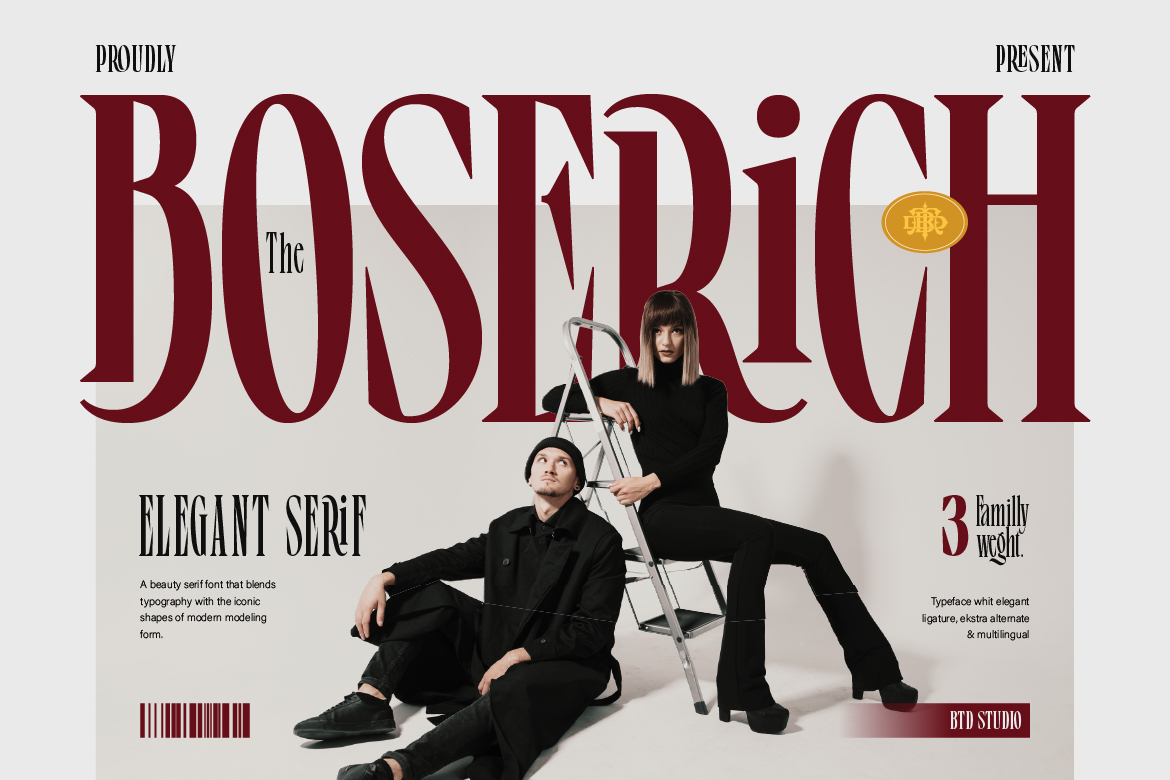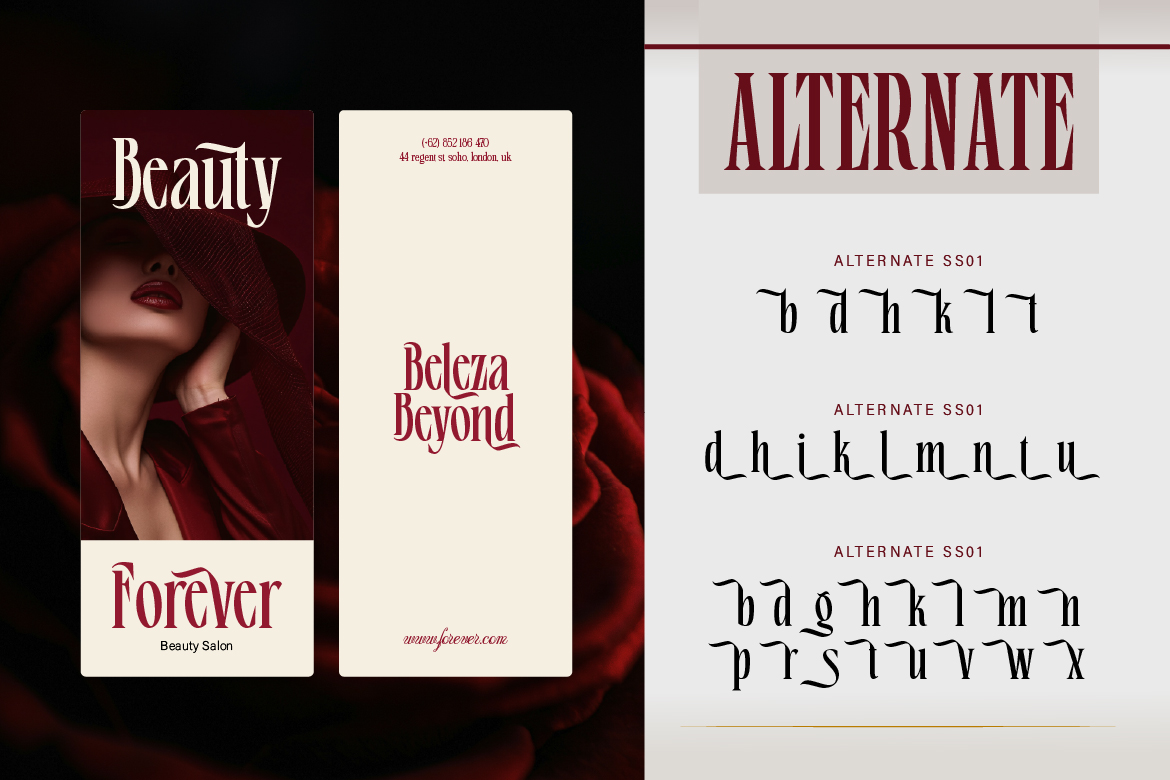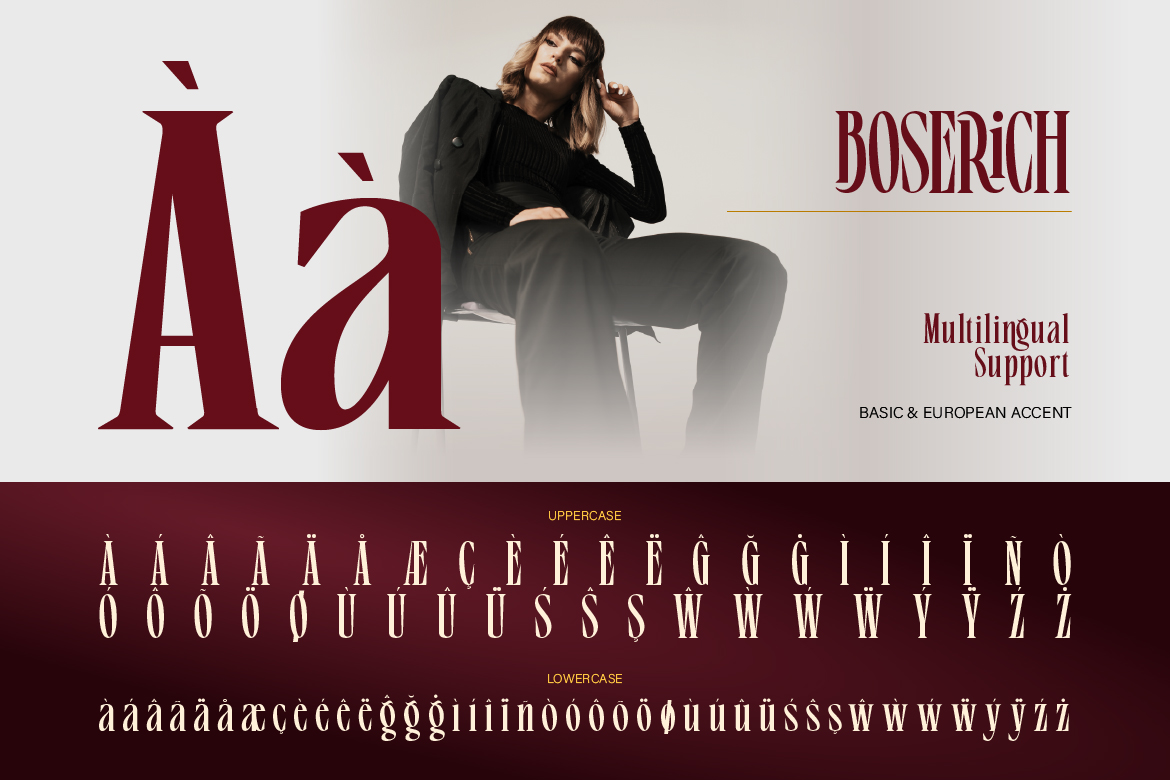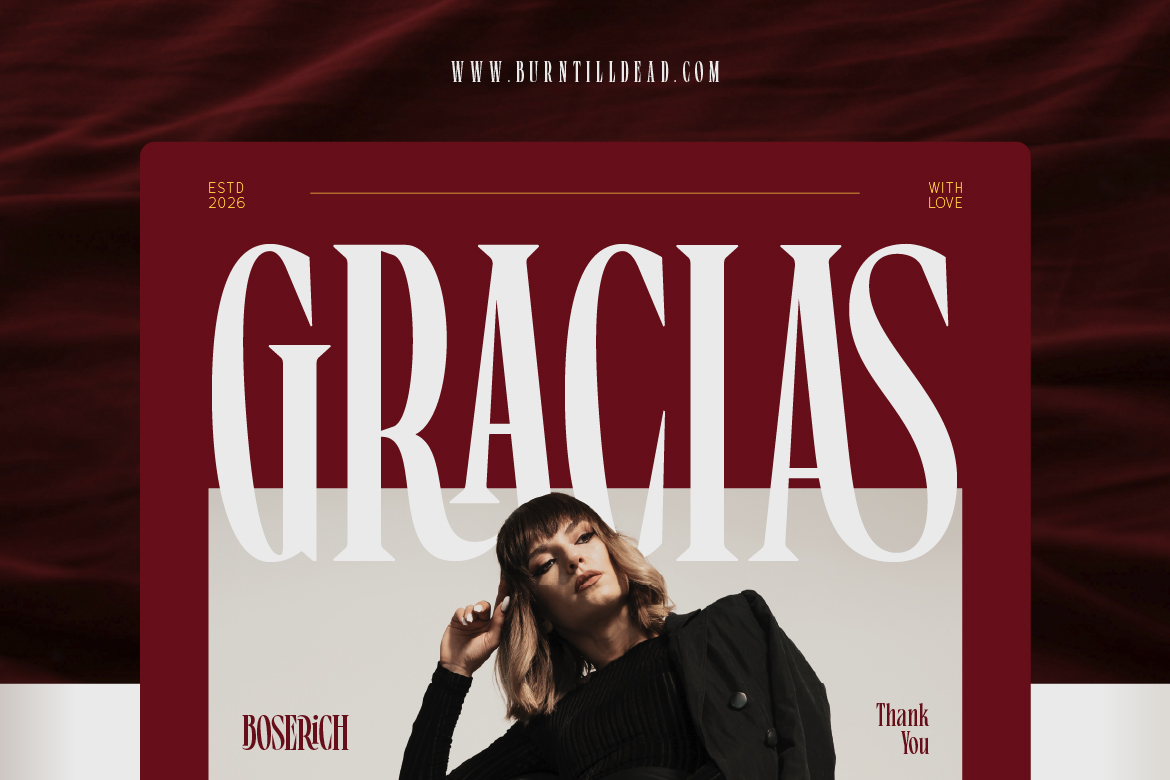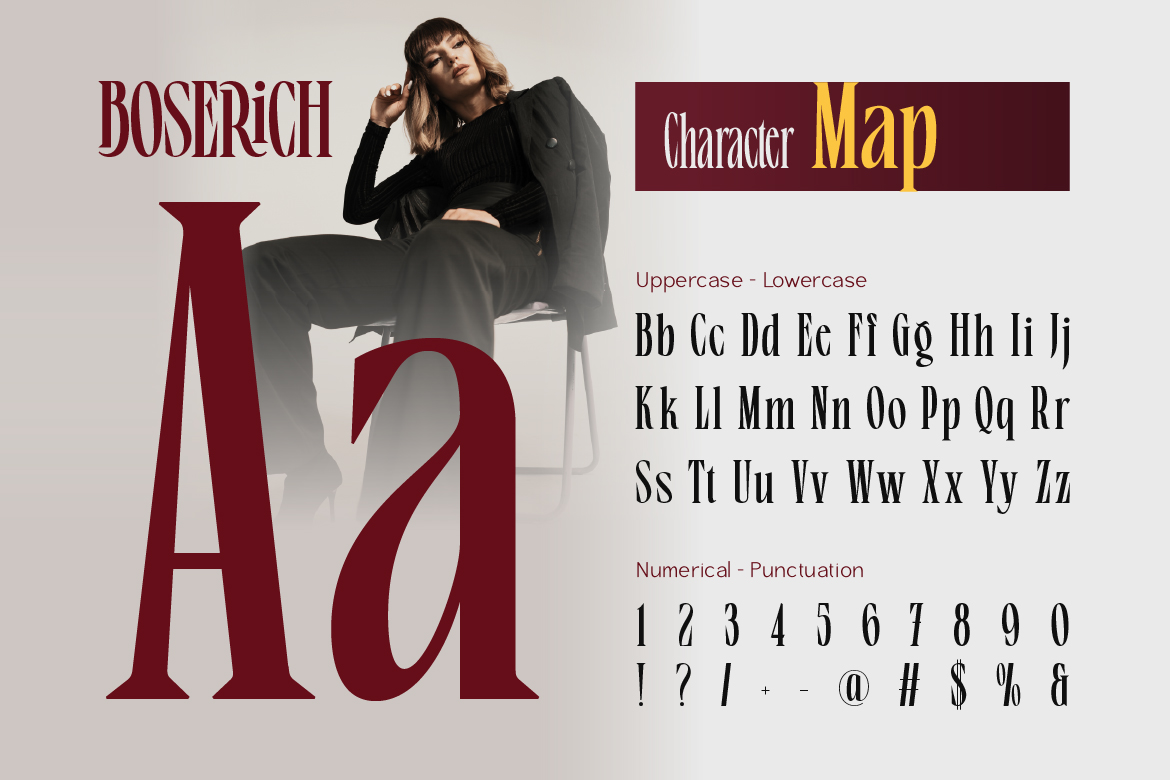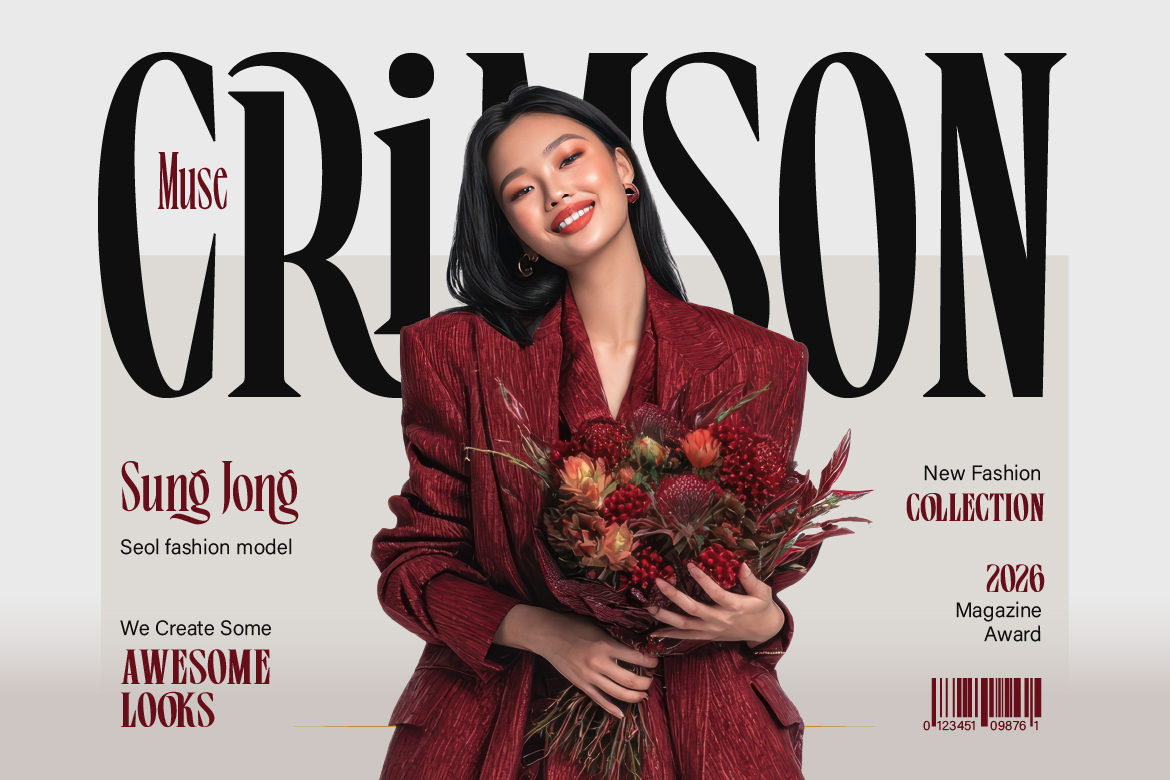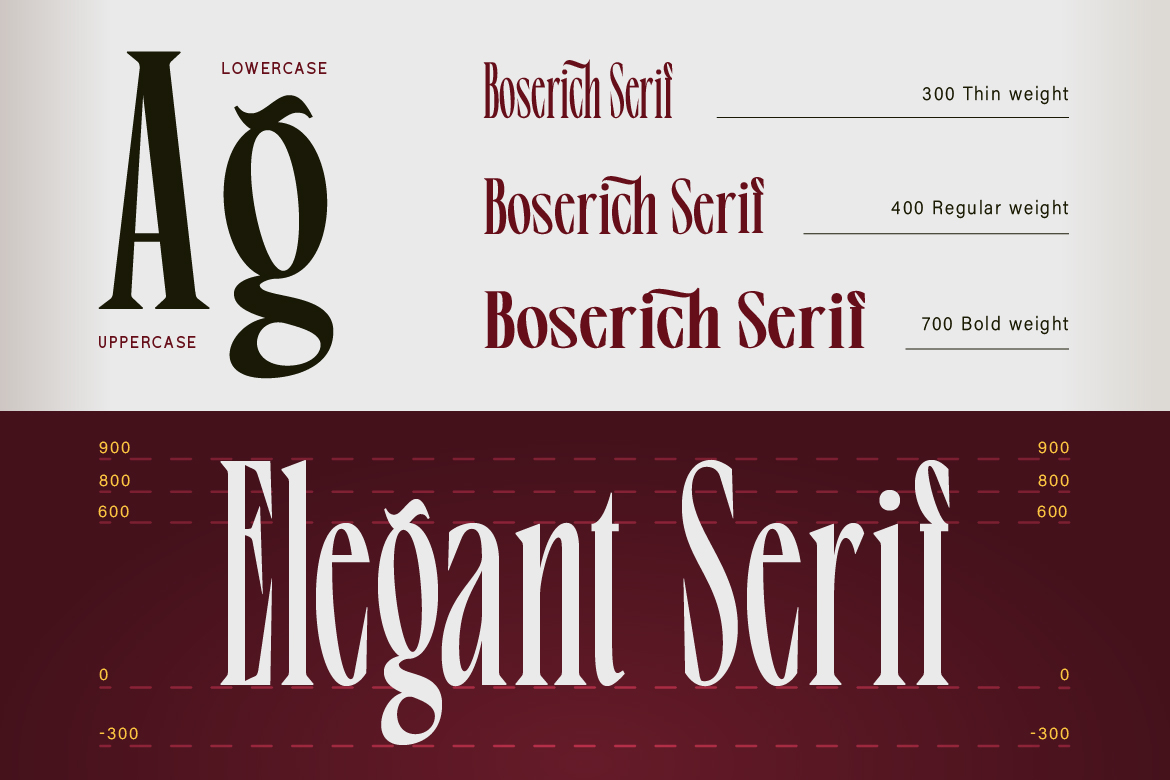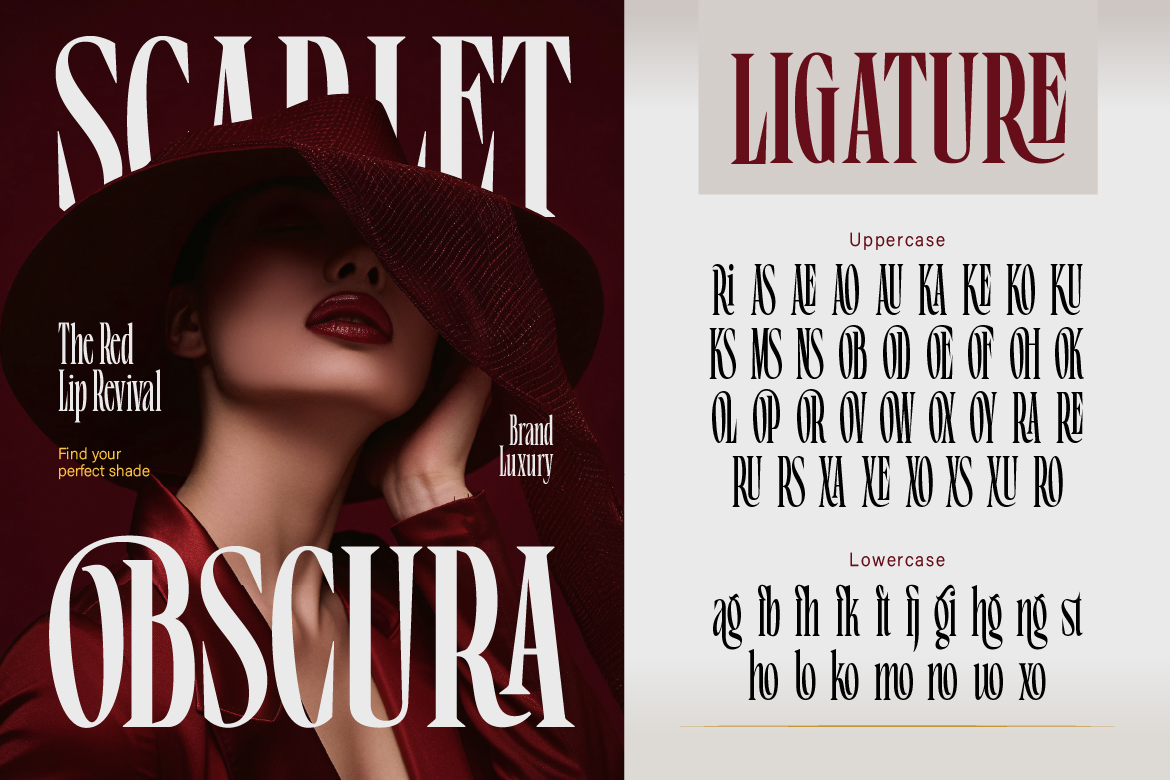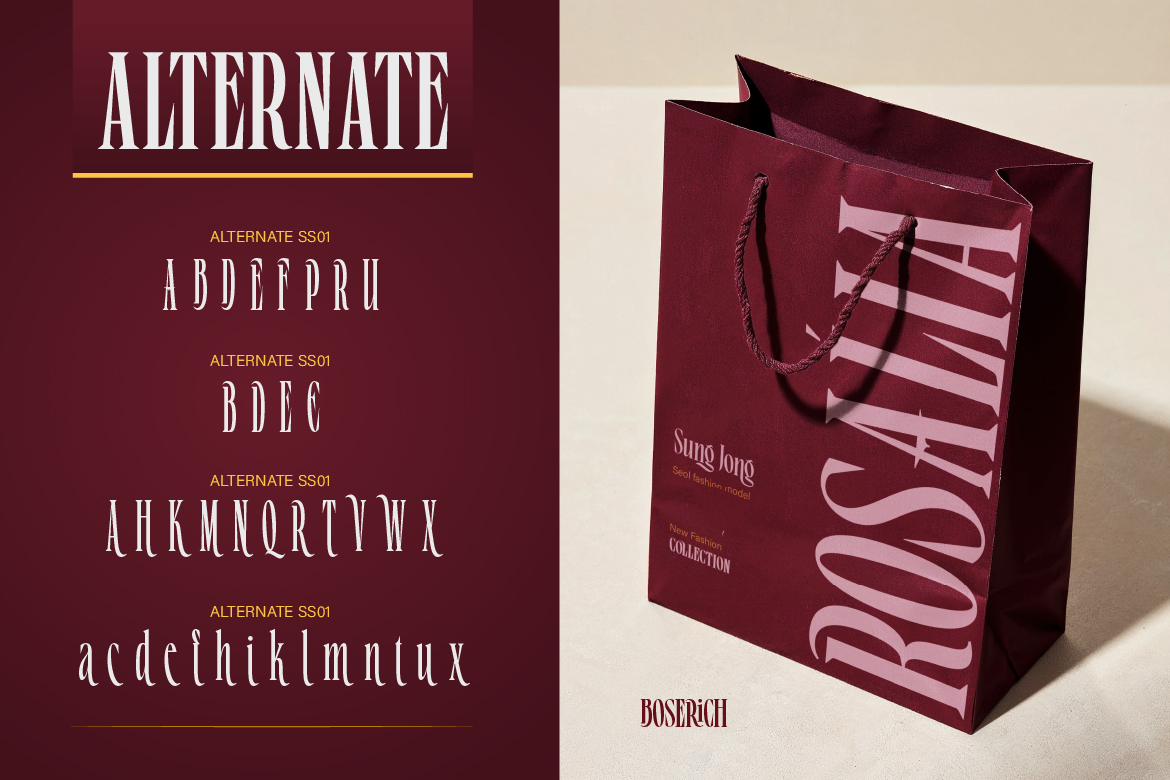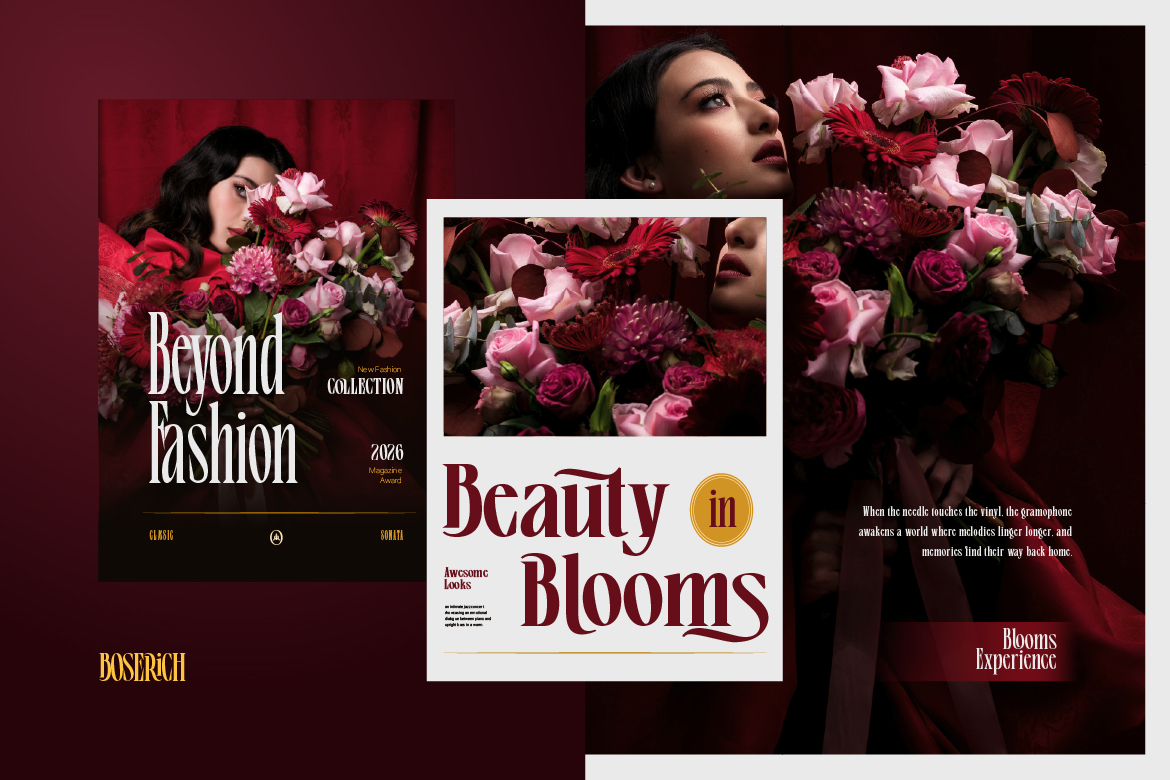
- Boserich
Boserich is a modern elegant serif typeface designed to bring a luxurious and high-fashion feel into your creative projects. Inspired by editorial magazines, luxury branding, and contemporary fashion aesthetics, this font blends classic serif structure with stylish modern details.
With its high contrast strokes, refined curves, and distinctive ligatures, Boserich creates a strong visual presence while still maintaining readability. The unique character shapes especially in letters like A, g, and R add a sophisticated personality that stands out effortlessly.
This font comes in multiple weights (Thin, Regular, and Bold), giving you the flexibility to create everything from delicate headlines to bold statement typography.
Perfect For:
- Fashion branding & luxury logos
- Magazine layouts & editorials
- Instagram & social media content
- Beauty & skincare branding
- Wedding invitations
- Packaging design
- High-end typography projects